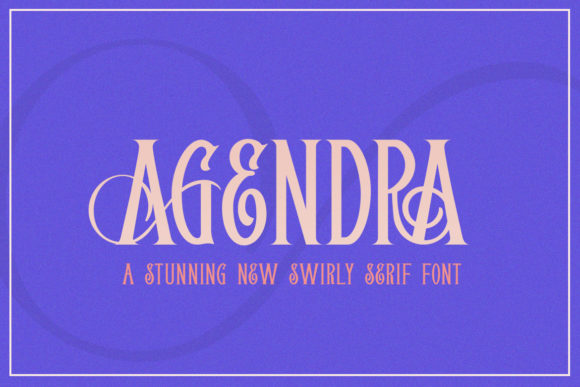
The Agendra Font: Elevate Your Designs with Elegance and Boldness
I’ll never forget the time I was working on a luxury brand project, and my client asked me to create a logo that exuded sophistication and elegance. I scoured the internet for the perfect font, but nothing seemed quite right. That was until I stumbled upon Agendra, an elegant and bold serif font that instantly caught my eye. In this article, I’ll share my experience with Agendra, its features, and how to make the most of it in your designs.
A Personal Review of Agendra
As a designer, I’m always on the lookout for fonts that can elevate my projects and make them stand out. Agendra has become a go-to font in my arsenal, and here’s why:
- ✨ Elegant and bold serif design that commands attention
- ✅ Highly versatile and can be used in a wide range of projects
- ✅ Well-suited for logos, headings, and titles
- ✅ Excellent for creating a luxurious and sophisticated feel
However, no font is perfect, and Agendra has a few quirks:
- ⚠️ Some users may find the font a bit too bold for certain projects
- 🤔 Limited availability of certain OpenType features in certain software
The Story Behind Agendra
Agendra was designed with the goal of creating a font that exudes elegance and sophistication. The designer, inspired by classic serif fonts, aimed to create a modern take on traditional typography. The result is a font that is both bold and refined, perfect for making a statement in your designs.
| Font Name | Agendra Font |
| Author | Salt and Pepper Fonts |
| What type of projects is Agendra best suited for? | Agendra is highly versatile and can be used in a wide range of projects, including logos, headings, titles, and more. |
| Does Agendra support OpenType features? | Yes, Agendra supports OpenType features, including glyphs and stylistic alternates, which can be accessed in compatible software. |
In conclusion, Agendra is an exceptional font that can elevate your designs and make them stand out. Its elegant and bold serif design, combined with its versatility and OpenType features, make it a valuable addition to any designer’s arsenal.